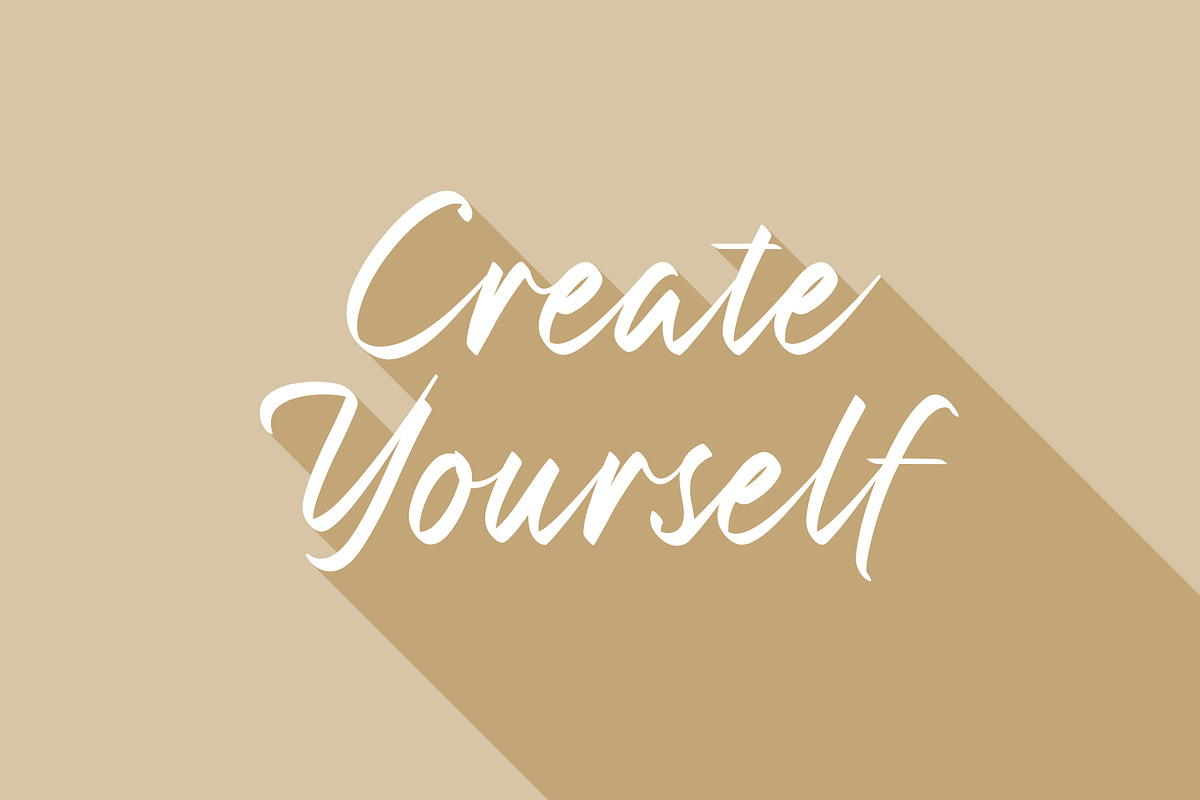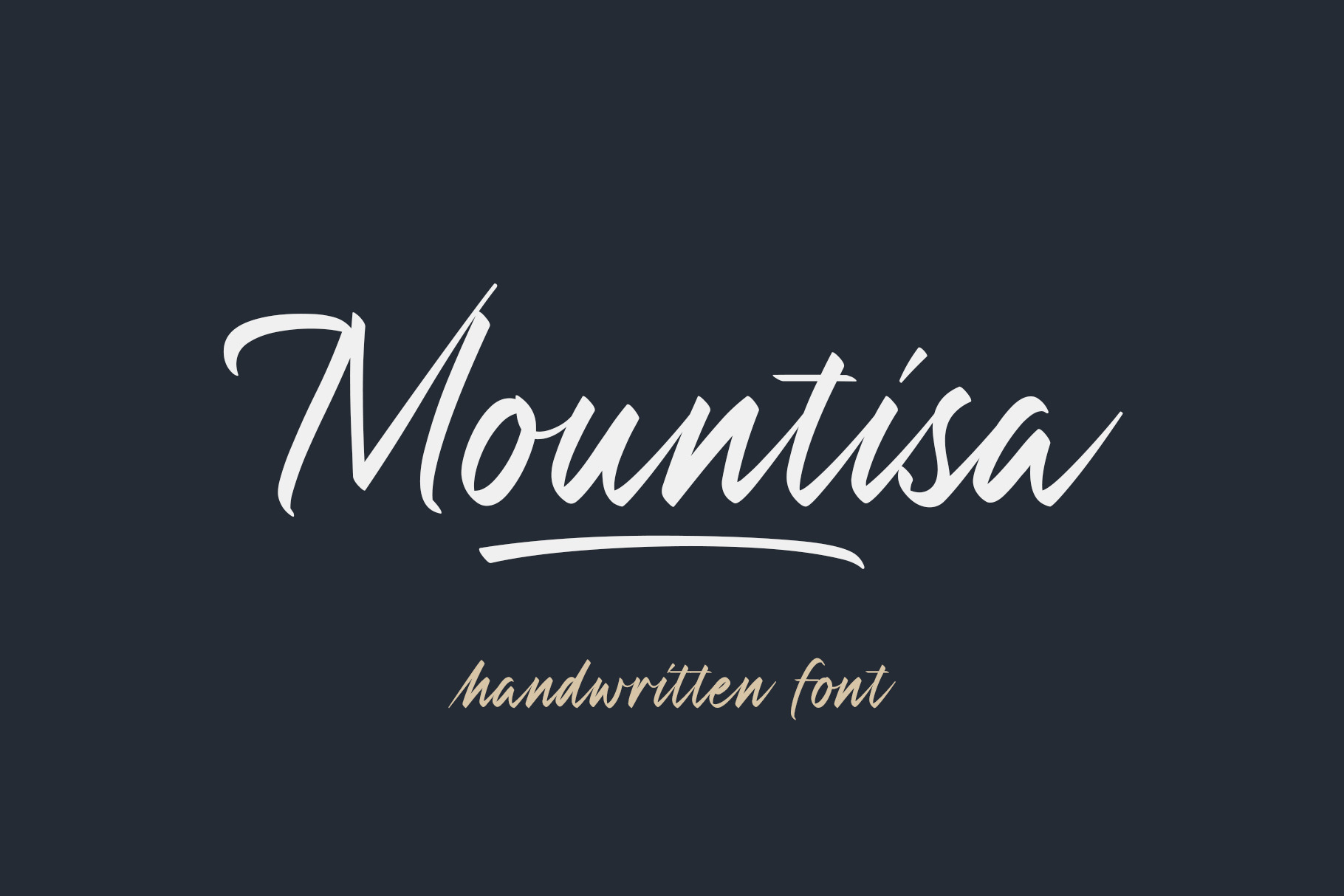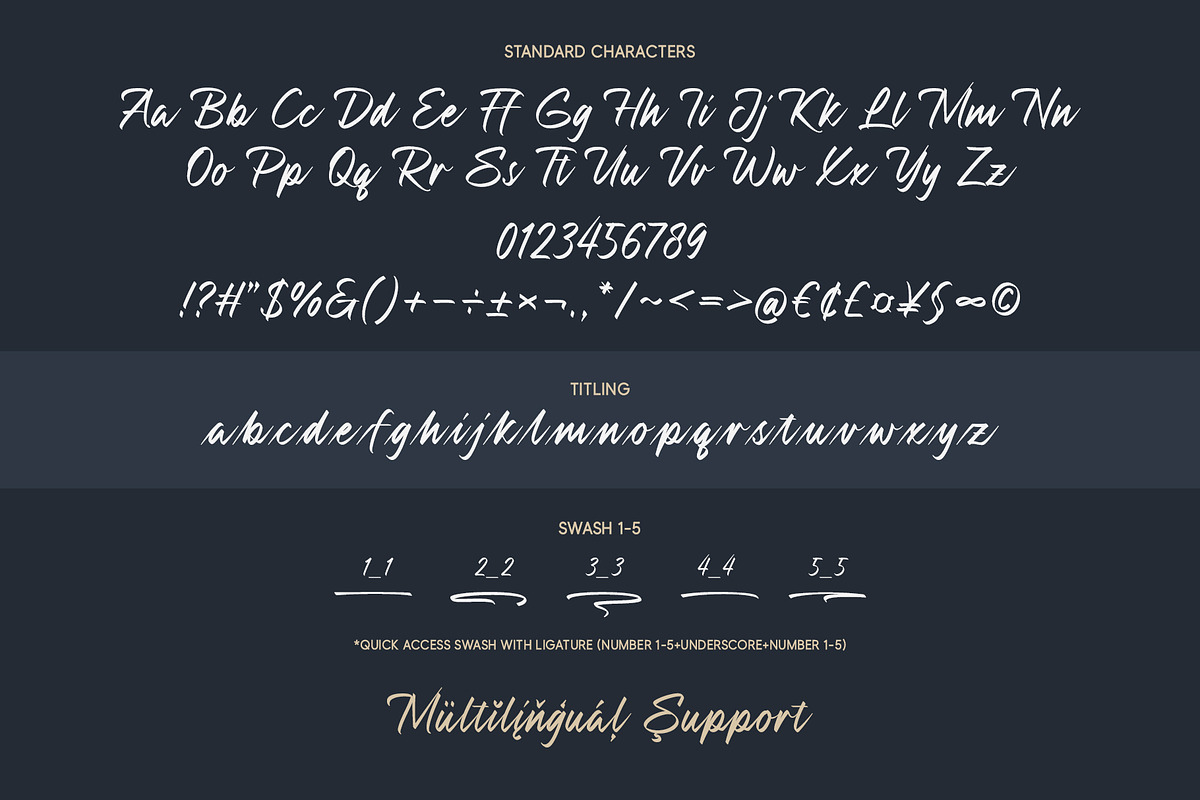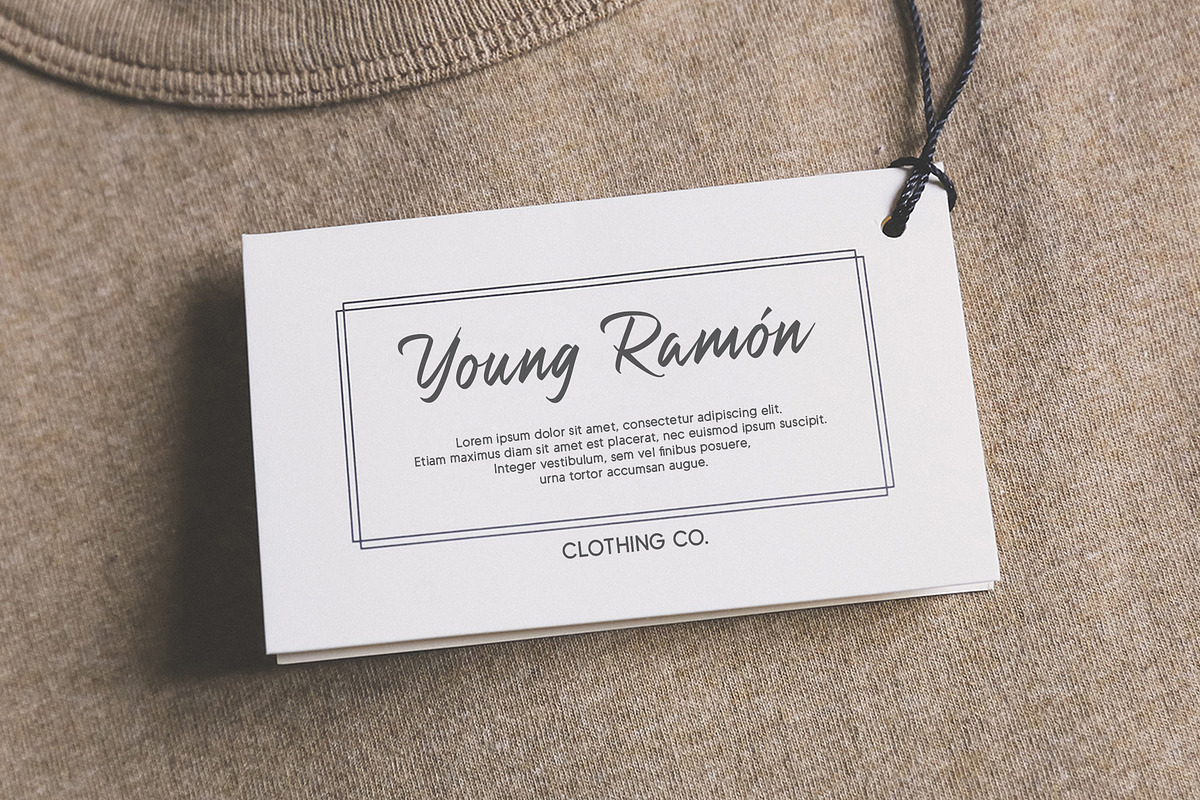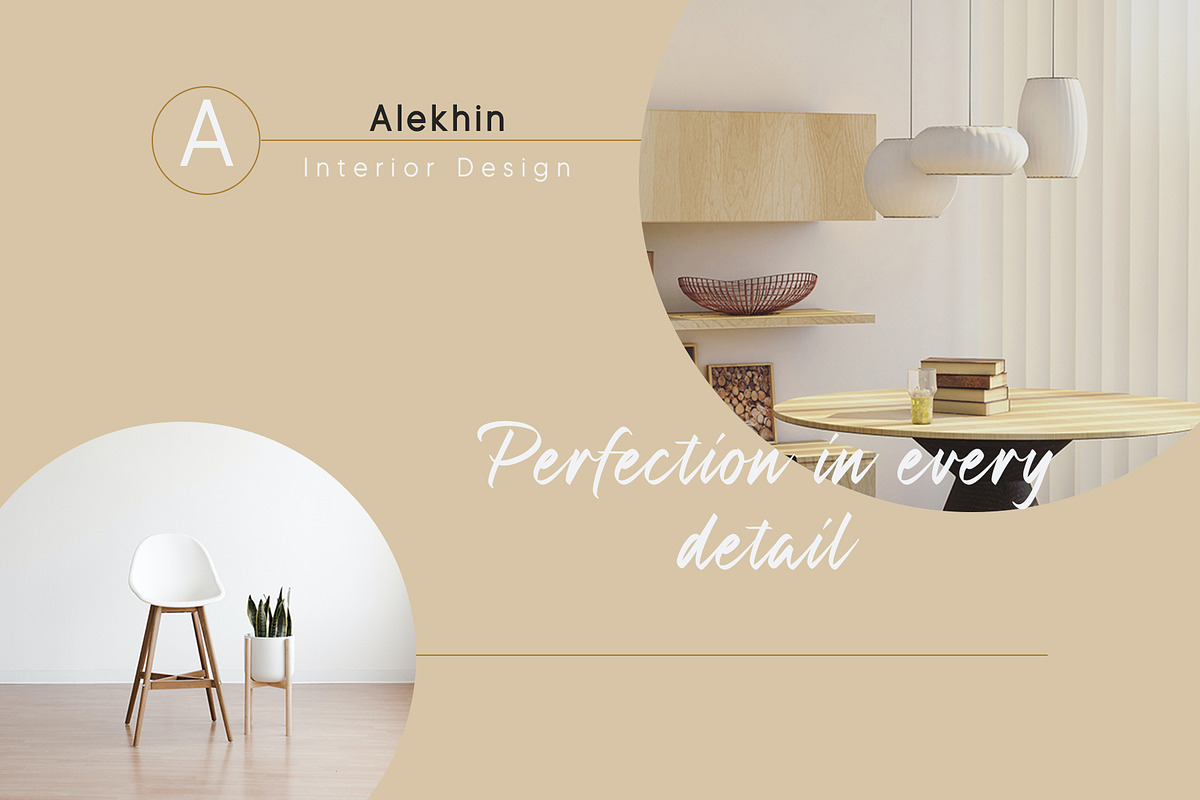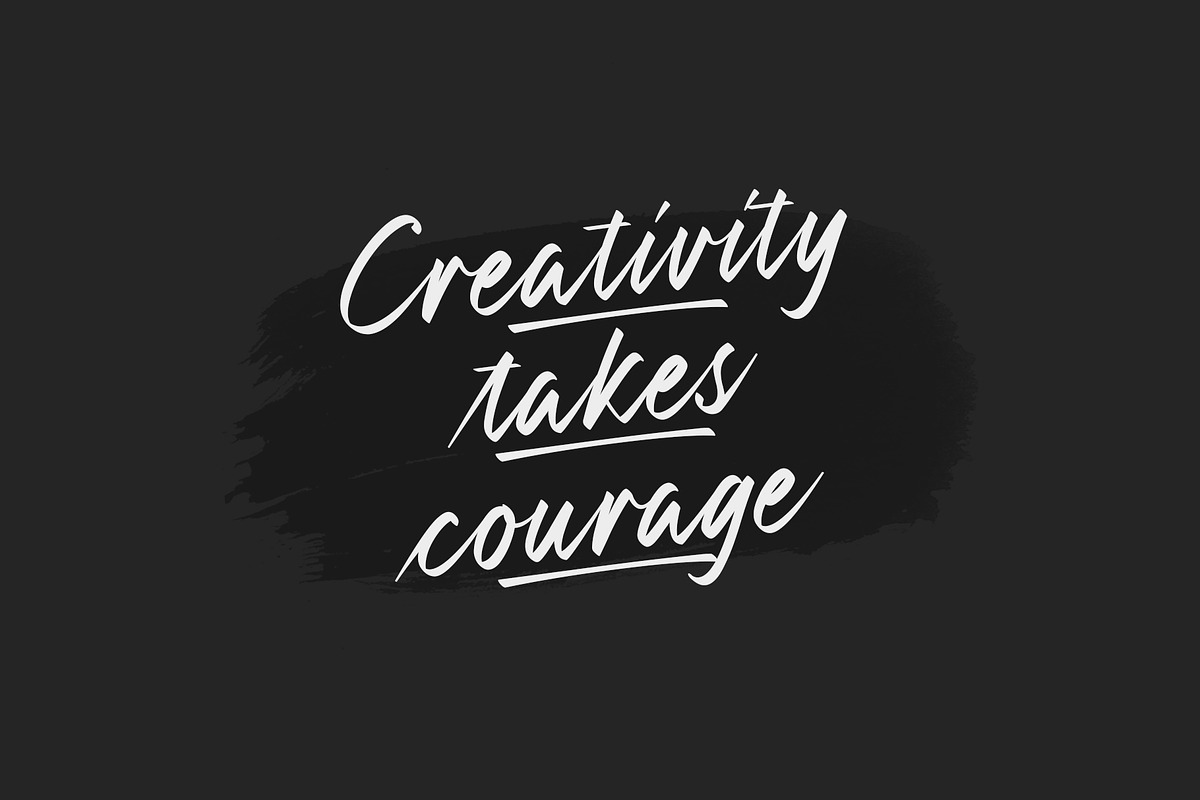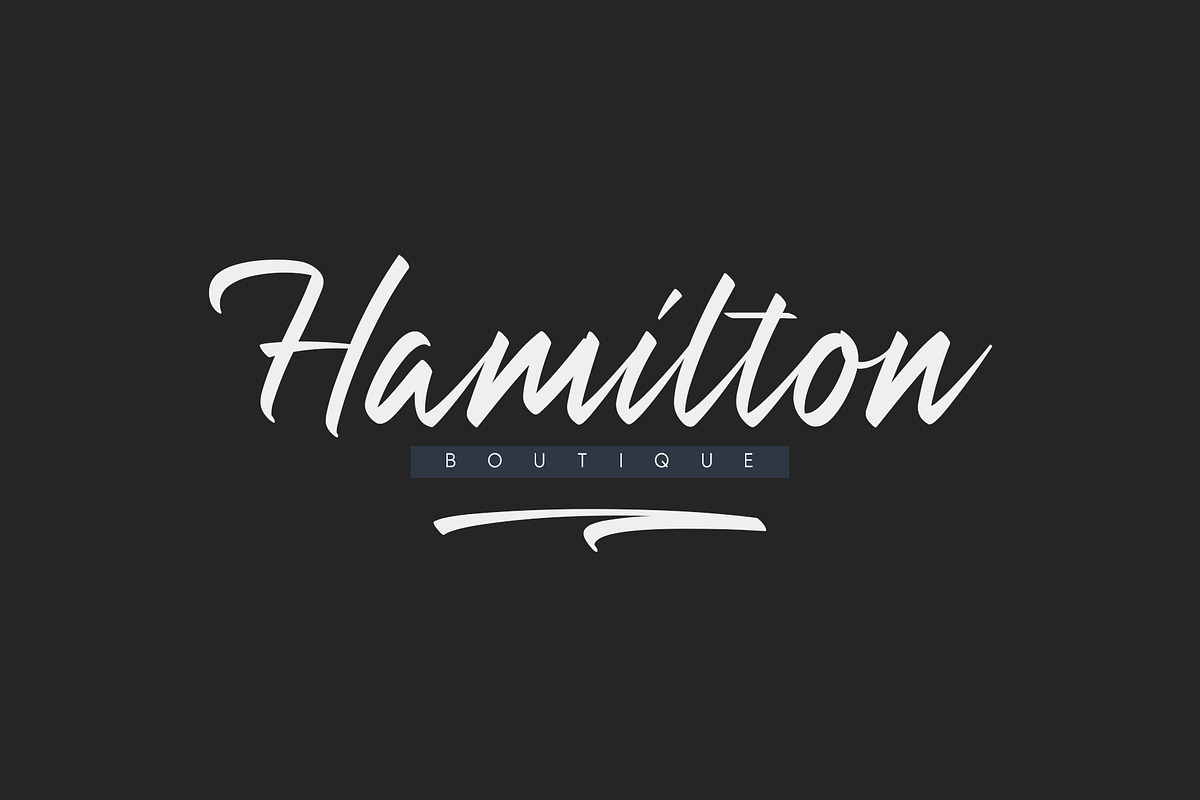
Mountisa | Handwritten Font
Mountisa is a script font with a dynamic and energetic style. It’s perfect for signature, stationery, photography, social media posts, product packaging, greeting cards, and every other design that needs a unique and striking font.
- Titling
Quick access swash
- Add number (1-5) + underscore + number (1-5). Ex: 1_1, 2_2, 3_3, 4_4, 5_5